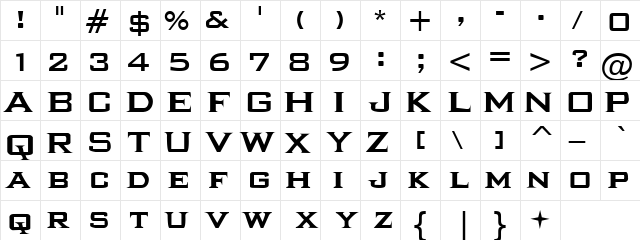
Ikarus Regular
Design Context for Ikarus Typeface
Ikarus is a composed and adaptable typeface that performs quietly and consistently across a wide range of design contexts.